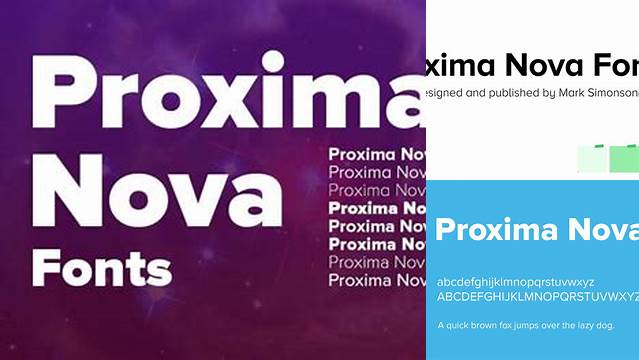
Hey guys! If you're on the hunt for a versatile and stylish font, look no further than the Proxima Nova Black font family! It's a real gem for designers, writers, and anyone who loves a good font. In this article, we'll dive deep into the Proxima Nova Black font family, explore why it's so popular, and show you how to get your hands on a free download. Get ready to elevate your designs and make your text pop!
Proxima Nova Black: An Overview of a Modern Classic
Proxima Nova Black, as the name suggests, is part of the larger Proxima Nova font family. Designed by Mark Simonson, Proxima Nova is known for its clean lines, modern aesthetic, and incredible readability. The Black weight is the boldest of the family, making it perfect for headlines, titles, and any text that needs to grab attention. Think of it as the superhero of fonts – strong, dependable, and always ready to save the day (or your design).
This font family strikes a perfect balance between geometric and organic forms. The slightly softened edges and rounded corners give it a friendly feel, while the strong letterforms ensure clarity and legibility. This makes Proxima Nova Black a great choice for both print and digital media. Whether you're designing a website, creating a poster, or crafting a presentation, Proxima Nova Black will help your message shine. It's a workhorse font that looks good in a variety of contexts. You can find it in everything from corporate branding to creative projects. The versatility of Proxima Nova Black is a major reason why it's so popular. It seamlessly blends into any design project. It’s adaptable and works effectively in a wide range of applications, from website headers to printed advertisements. Its modern and clean aesthetic allows it to integrate with various design styles.
The font's popularity is also a testament to its readability. In the world of design, readability is key. Proxima Nova Black ensures that your audience can effortlessly read your text. It is particularly effective for headlines and titles where you need to command immediate attention. It is crafted with high-quality design elements that are legible at any size. When you are looking for a font that combines aesthetics with functionality, the font family emerges as the top choice. Proxima Nova Black also includes a complete set of characters. This includes both uppercase and lowercase letters, numbers, and punctuation marks. It has a variety of language support, enhancing its usability for various international projects.
Why Choose Proxima Nova Black?
Why pick Proxima Nova Black over other fonts? There are several compelling reasons. Its bold weight makes it perfect for headings and emphasized text. It commands attention without overpowering the overall design. It seamlessly integrates with other weights in the Proxima Nova family, allowing for cohesive and visually appealing layouts. The design offers a clean and modern aesthetic. It ensures readability on various devices and screen sizes. This is a crucial factor for digital content. This font isn’t just about looks. It's designed for efficiency. The characters are well-spaced. This helps the user’s eyes to follow the text easily. Furthermore, it is a good choice for various projects. Whether you are creating a brand identity, a website, or marketing materials, Proxima Nova Black will help to create a professional image.
The Advantages of Using Proxima Nova Black
Proxima Nova Black is known for its striking visual impact. It is extremely useful in drawing the attention of your audience, and ensuring that important information is easily noticed. Its bold style allows it to serve its function across multiple channels. The font's versatility also has its advantages. It works really well in headlines, titles, and other display text, and blends in well with any design style. This flexibility saves time. It offers various design options. You can create a consistent brand. The character set offers a large range of options. It contains a full set of glyphs. You can write in many languages. It supports international projects. This gives your content global appeal. The font's modern and clean aesthetic makes it versatile. It ensures readability across various devices and screen sizes. It is essential for digital content. Using Proxima Nova Black can help boost engagement and improve the overall user experience.